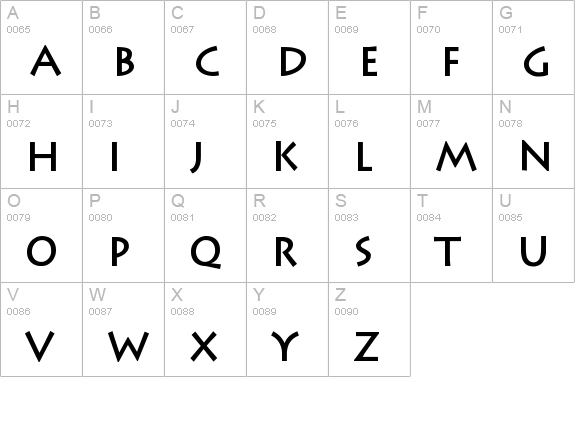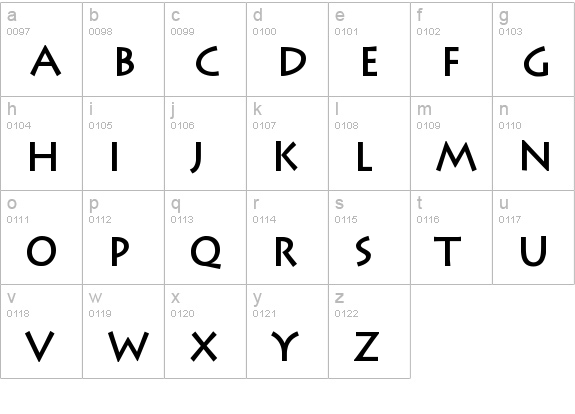
Liste Bold is a strong, high-contrast variant in the Liste typeface family \xE2\x80\x94 well suited to headlines, attention-grabbing titles, and strong calls-to-action.
Liste Bold font is a visually striking and modern typeface that is sure to make a statement in any design project. Its bold and clean lines exude confidence and professionalism, making it an ideal choice for headlines, logos, and branding materials. The sleek and stylish design of Liste Bold font is perfect for creating eye-catching graphics that demand attention. Whether you're designing a website, brochure, or social media post, this versatile font will elevate your design and leave a lasting impression on your audience. Best of all, Liste Bold font is available for free download at FontsMarket.com. This means you can easily access this premium font without any cost, making it a valuable addition to your font library. Don't miss out on the opportunity to enhance your designs with the bold and impactful Liste Bold font – download it today and take your projects to the next level!